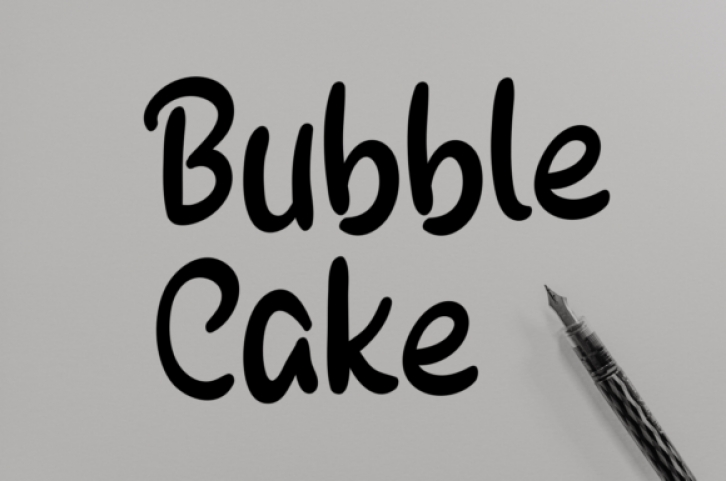
Bubble Cake is a simple and interesting display font. Its friendly feel makes this font incredibly versatile, fitting a wide range of contexts. No matter the topic, this font will be an incredibly asset to your fonts’ library, as it has the potential to elevate any creation.